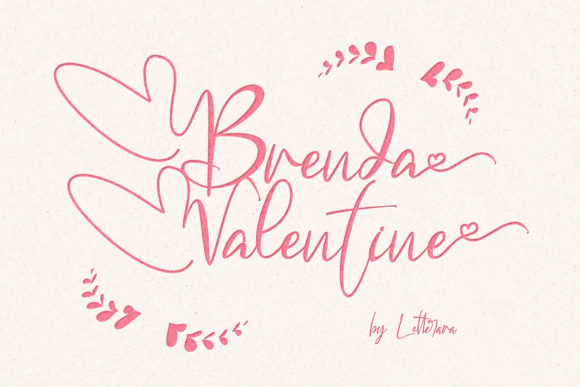
Step into the enchanting world of Brenda Valentine, a script font that exudes charm and elegance. With its graceful curves and playful strokes, this font is a visual delight that will add a touch of romance to any creative project.
Crafted by the talented Thomasaradea, Brenda Valentine is a testament to the art of handwritten typography. Its unique and enchanting style is sure to make your designs stand out from the crowd. Whether you're creating wedding invitations, greeting cards, or any other personal projects, Brenda Valentine will add a touch of sophistication and charm.
Imagine the joy of sending a handwritten letter with words flowing effortlessly from the page, thanks to Brenda Valentine's smooth and legible design. The font's delicate swashes and subtle variations in thickness give it a lifelike quality, creating the illusion that each word is lovingly penned by hand.
Brenda Valentine's versatility knows no bounds. Its graceful lines lend themselves perfectly to logos, branding, and social media graphics. Create eye-catching visuals that leave a lasting impression on your audience. Use Brenda Valentine to design elegant posters, flyers, and marketing materials that will capture attention and convey your message with style.
Brenda Valentine is more than just a font; it's an expression of creativity and emotion. Its whimsical and playful nature invites you to let your imagination run wild. Whether you're a professional designer or a creative hobbyist, Brenda Valentine will empower you to bring your artistic visions to life.